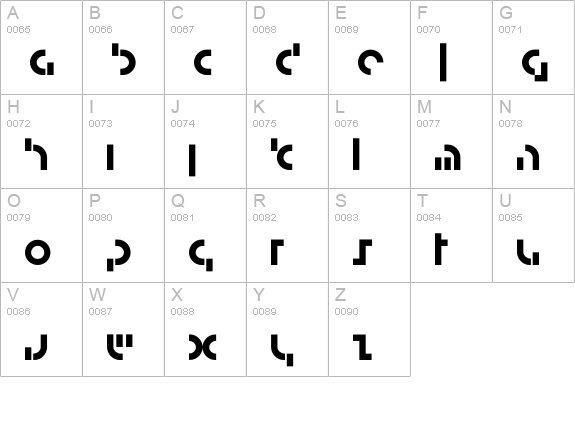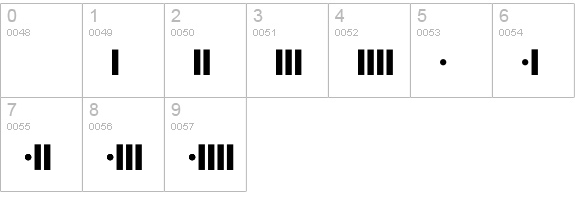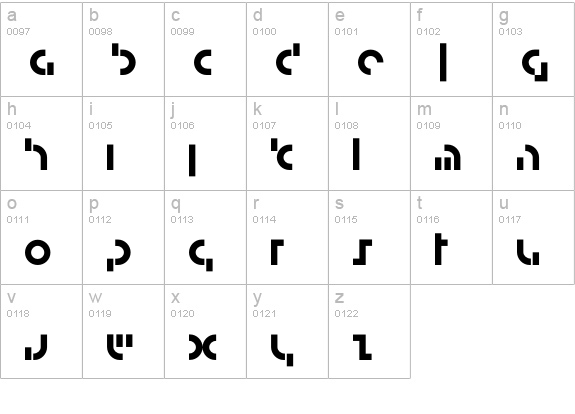
Graphic Font Details
Introducing the stunning Graphic font, a modern and versatile typeface that is sure to elevate your design projects to the next level. With its sleek lines and contemporary feel, this font is perfect for creating eye-catching graphics, posters, logos, and more. The best part? Graphic font is available for free download at FontsMarket.com, where you can easily access this incredible resource to enhance your creative endeavors. Whether you're a seasoned designer or just starting out, this font's clean and sophisticated look will make a bold statement in any project. Don't miss out on the opportunity to add Graphic font to your collection today. Download it for free at FontsMarket.com and unleash your creativity with this stylish and elegant typeface.